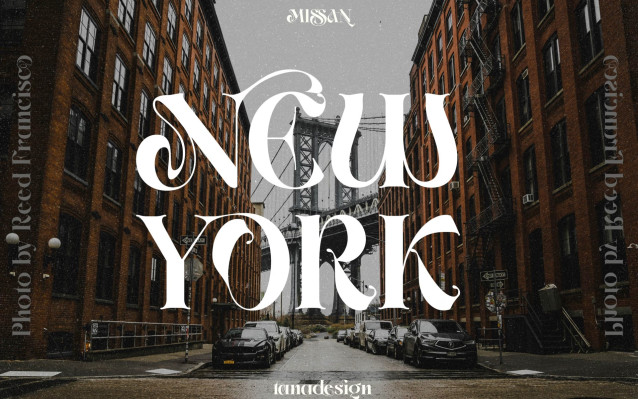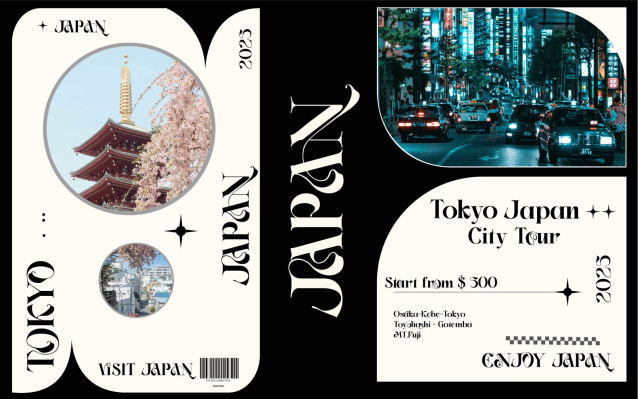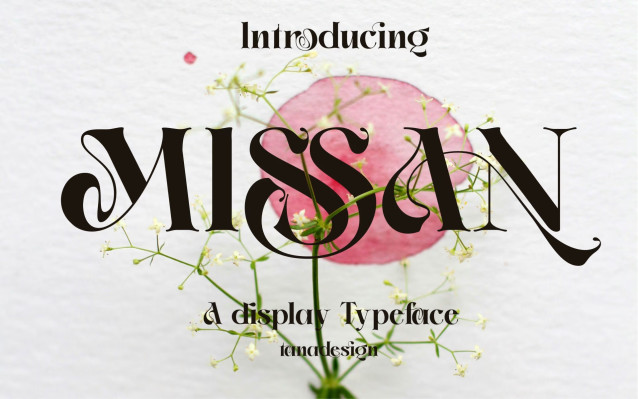
Missan Font
Missan Font is a serif display font inspired by Japanese kanji which is applied to capital letters, which can be included in product branding, logos and written articles, the twists and turns of the characters in these letters can develop your wild inspiration